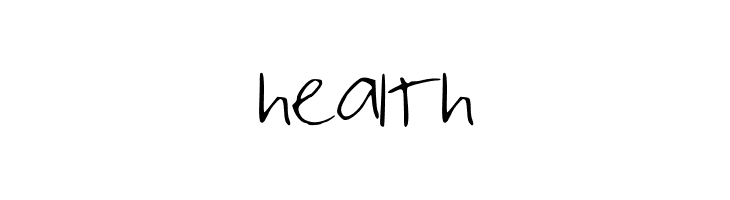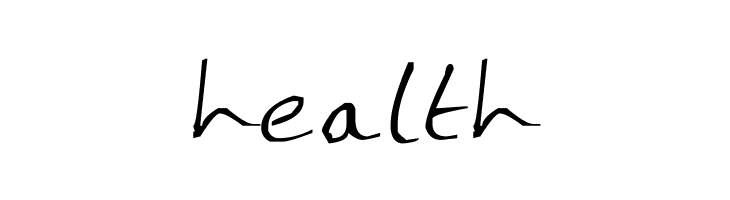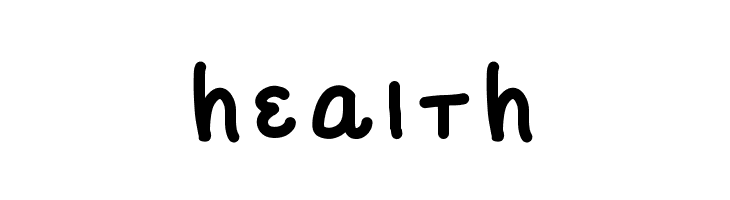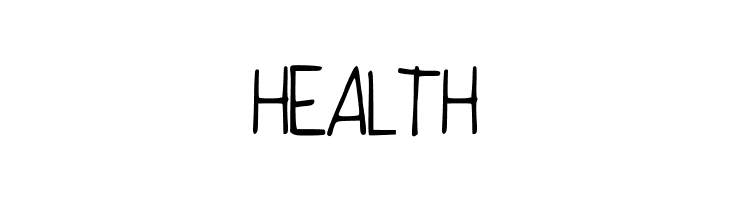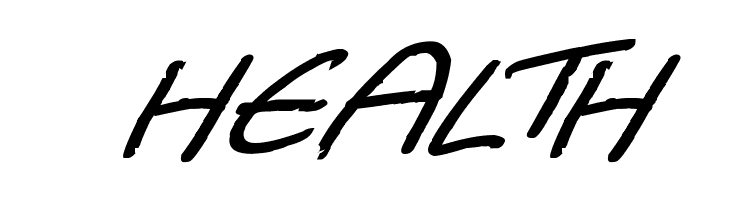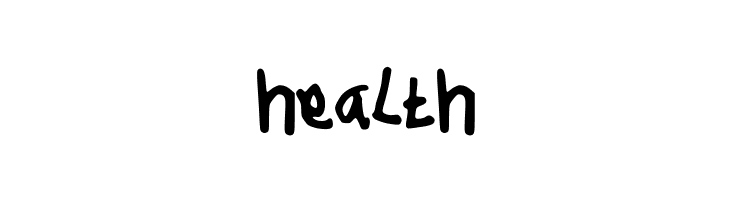
A fluid and graceful script font with a natural handwriting style.
( Fonts by Lekearls )
A playful, handwritten-style font with a casual and friendly appearance.
( Fonts by Tokopress )
Tall, playful handwritten font with rounded, informal shapes.
( Fonts by Perspectype Studio )
A playful, handwritten-style font with rounded, consistent strokes.
( Fonts by Scratchones )
Modern, playful script with high contrast and decorative swashes.
( Fonts by VinType )
Playful, rounded sans-serif with a hand-drawn, informal look.
( Fonts by Hatf Type )
Expressive handwritten script with a lively, informal style.
( Fonts by Ibnu Nur Rahman )
Elegant handwritten script font.
( Fonts by Timur Type )
Casual handwritten font with a playful style.
( Fonts by Vztype Studio )
Elegant script font with a handwritten style.
( Fonts by Scratchones )
Tall, whimsical handwritten script with playful curves.
( Fonts by dcoxy )
Elegant, connected script font with a handwritten, calligraphic style.
( Fonts by Ibnu Nur Rahman )
A playful, handwritten font with smooth, flowing lines and a casual style.
( alicekiwi.com )
A casual, handwritten font with a smooth, flowing style.
( Fonts by Konstantin K )
A bold, expressive handwritten font with dynamic and irregular strokes.
( Fonts by Konstantin K )
A bold, expressive handwritten font with dynamic strokes.
( Fonts by Konstantin K )
A bold, italicized, and expressive handwritten font with dynamic strokes.
( Fonts by Storytype Studio )
A graceful and elegant script font with flowing, interconnected strokes and charming embellishments.
( Fonts by Kitaleigh Boutique )
A charming cursive font with smooth, flowing lines and whimsical special characters.
A playful, artistic script font with fluid, connected letterforms and medium contrast.
( Fonts by Nikita Grimes )
A playful, handwritten font with tall, narrow characters and a casual style.
( Fonts by Kitaleigh Boutique )
A playful, hand-drawn font with tall, narrow characters and a whimsical style.
( Fonts by Origin Type )
Casual handwritten font with a playful style.
( Fonts by Gassstype )
Playful and bold handwritten font.
( Fonts by Alexa Fredua )
A playful, hand-drawn font with irregular, whimsical characters.
( Fonts by Andi Moz )
Elegant decorative script font.
( Fonts by VinType )
Elegant cursive script with a handwritten feel.
( Fonts by Dexsar Harry Anugrah )
Playful handwritten font with tall, narrow letters.